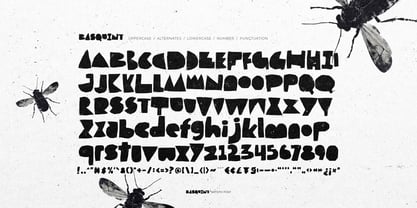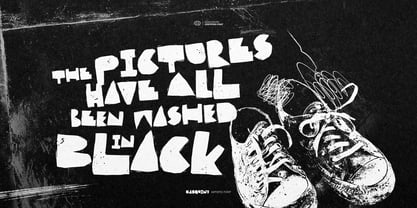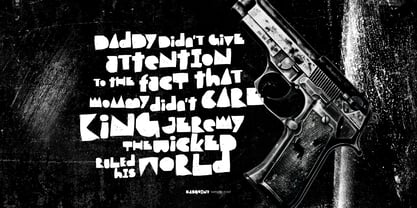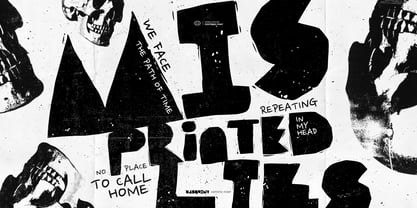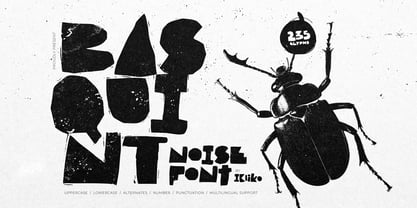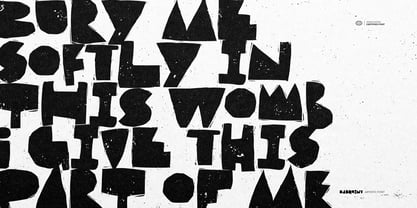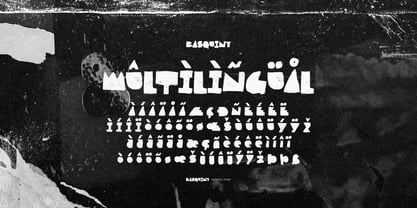
Basquint
by IKIIKOWRK
The Basquint Font Family was designed by Andhika Pradana and published by IKIIKOWRK. Basquint contains 1 styles.
Proudly Present Basquint - Noise Font, created by ikiiko Basquint is a loud, unapologetic statement for designers who crave something real. Built with a bold handcraft spirit, this typeface embraces imperfection and turns it into attitude. Every letter feels organic, cut and shaped with instinct rather than precision—giving your work that raw, human edge. With its rough, textured finish and gritty stamp style, Basquint delivers a powerful visual punch. It’s not clean, it’s not safe—and that’s exactly the point. This is a raw, edgy, and slightly chaotic font that refuses to blend in. Perfect for posters, covers, movie titles, streetwear branding, zines, or anything that needs a strong voice, Basquint captures the energy of underground culture and the spirit of a true rebel. It’s expressive, imperfect, and full of noise—in the best way possible. What's Included? Uppercase & Lowercase Alternates Numbers & Punctuation Multilingual Support Works on PC & Mac Get also a good offer & FREEBIE at our site Enjoy our font and if you have any questions, you can contact us by email
Designers: Andhika Pradana
Publisher: IKIIKOWRK
Foundry: IKIIKOWRK